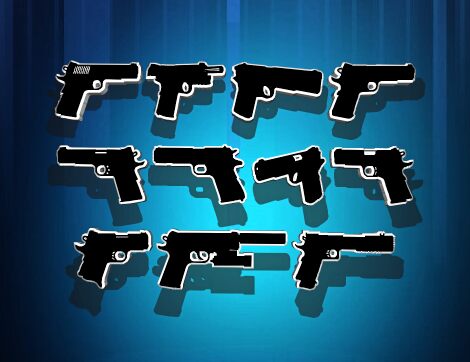
1911's
1911's font by Iconian Fonts showcases a dynamic and powerful typography style that’s perfect for bold, attention-grabbing designs. With its military, guns, and pistols theme, every aspect of this free dingbats font is meticulously crafted to create a strong visual impact with an avant-garde aesthetic. Let it transform your design into one with a high-energy, statement-making presence.
Have designs that stand out in the crowd when using 1911's for book covers, publications, movie posters, CD covers or albums. The font fits well on titles and in other projects such as banners and flyers for concerts or music events. Websites and applications become more alive when using 1911's – the same goes for social media accounts.